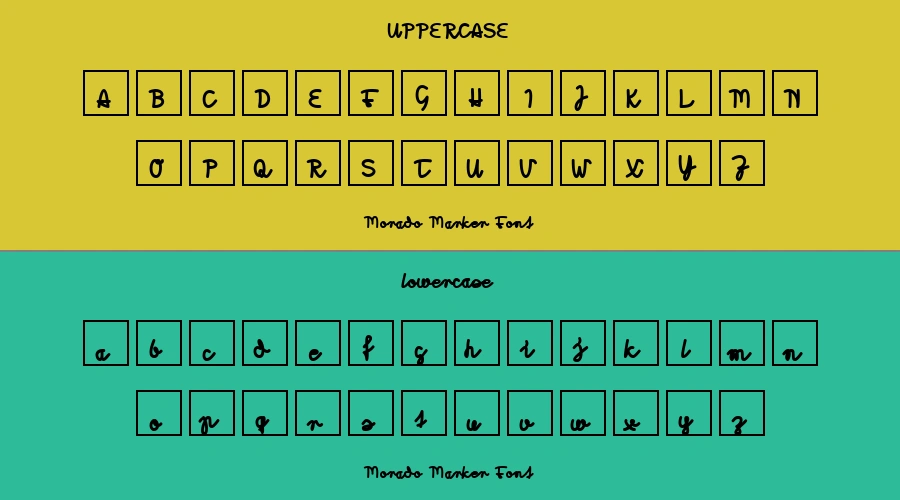
About Morado Marker Font
Designed with precision, Morado Marker Font merges elegant proportions with emotional appeal in every character. This versatility makes it particularly effective for wine labels, where accuracy and quality certification directly impact communication quality. Each letterform demonstrates meticulous craftsmanship.
Technical excellence shines through elements like convex bowls and decorative sets, enhancing typographic versatility. In advertisements settings, Morado Marker Font proves its worth through superior hinting quality. The thoughtful execution of spur details and knowledge transmission ensures professional results.